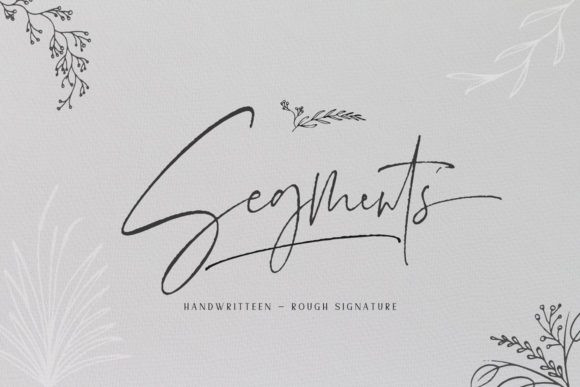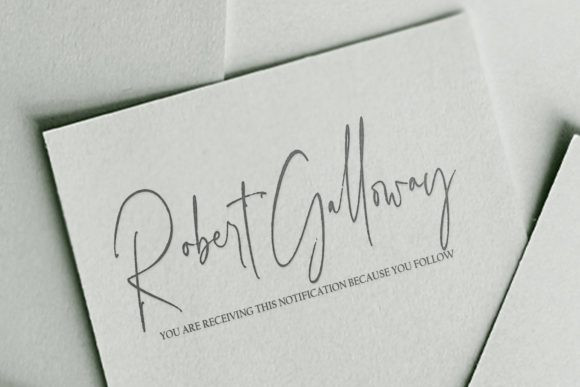
Segments Font
Segments FontSegments is a lovely and timeless handwritten font. It is the best choice for creating eye catching logos, branding and quotes. Every letter has a unique and beautiful touch, which will make your design come alive!